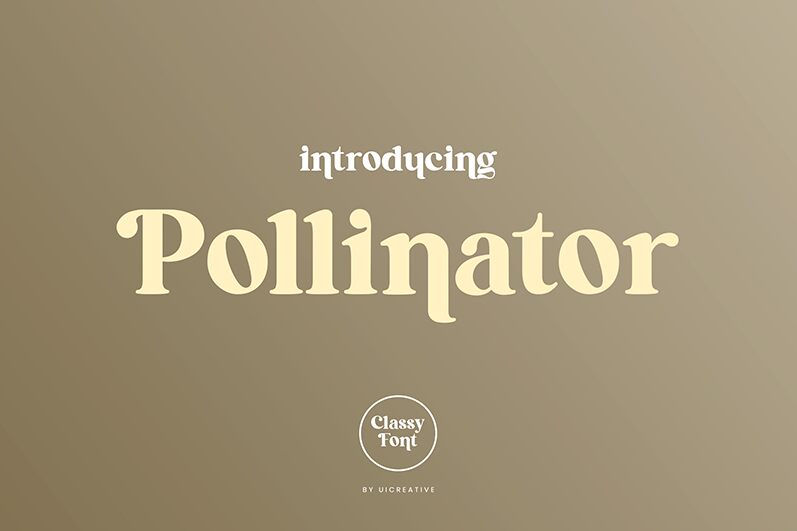
Pollinator
Pollinator, crafted by UI Creative, exudes a timeless elegance with its bold serif style. The font's robust characters and pronounced serifs create a striking visual impact, making it an excellent choice for projects that require a touch of sophistication and authority.
Pollinator’s strong presence is ideal for branding, headlines, and editorial design, where clarity and emphasis are paramount. Its classic yet contemporary vibe ensures versatility across various design contexts, from luxury packaging to formal invitations.
Incorporate Pollinator into your next project to elevate its aesthetic appeal with both grandeur and readability.